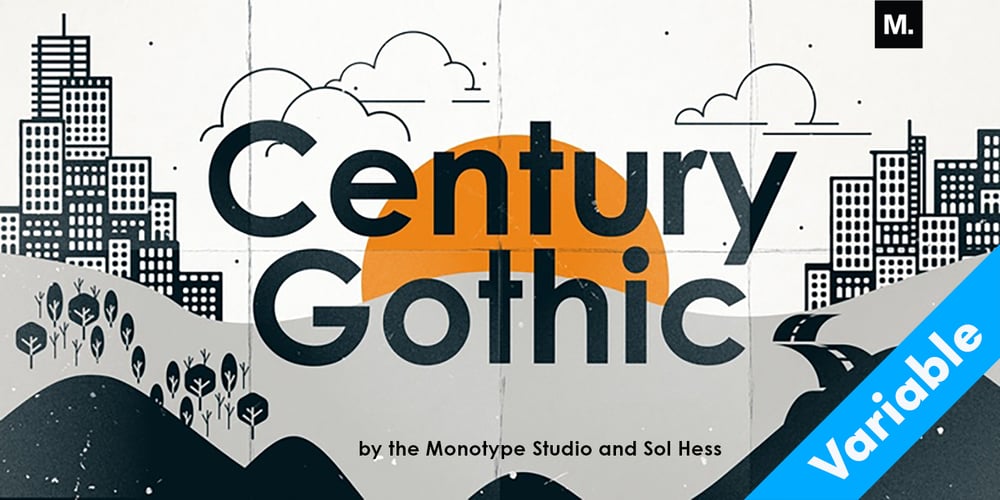
Century Gothic Paneuropean Variable
Century Gothic Paneuropean Variable font
Century Gothic Paneuropean Variable Font Family was designed by Sol Hess, Monotype and published by Monotype. Century Gothic Paneuropean Variable contains 2 styles and family package options. Century Gothic™ is based on Monotype 20th Century, which was drawn by Sol Hess between 1936 and 1947. Century Gothic maintains the basic design of 20th Century but has an enlarged x-height and has been modified to ensure satisfactory output from modern digital systems. The design is influenced by the geometric style sans serif faces which were popular during the 1920s and 30s. The Century Gothic font family is useful for headlines and general display work and for small quantities of text, particularly in advertising. Century Gothic family has been extended to 14 weights in a Pan-European character set from Thin to Black and their corresponding Italics. The already existing 4 weights of Regular and Bold with their Italics are additionally still available in the STD character set. For international communication, the W1G versions offer the appropriate character set. They contain Latin, Greek and Cyrillic characters and thus support all languages and writing systems that are in official use in Western, Eastern and Central Europe. Century Gothic Variable is features two axes: Weight and Italic. The Weight axis has preset instances from Light to Black. The Italic axis is a switch between upright and italic. Looking for the perfect way to complete your project? Check out Aptifer™ Slab, ITC Berkeley Old Style®, FF Franziska™, Frutiger®, ITC Legacy® Square Serif or Plantin®.